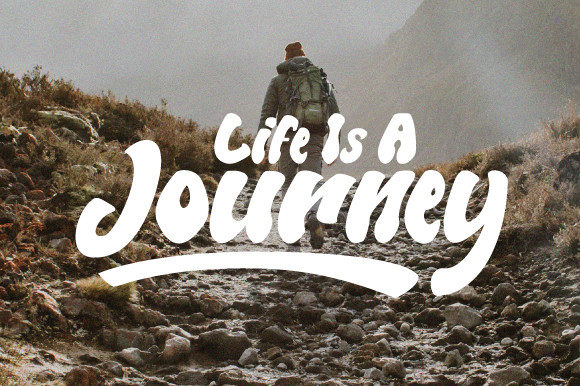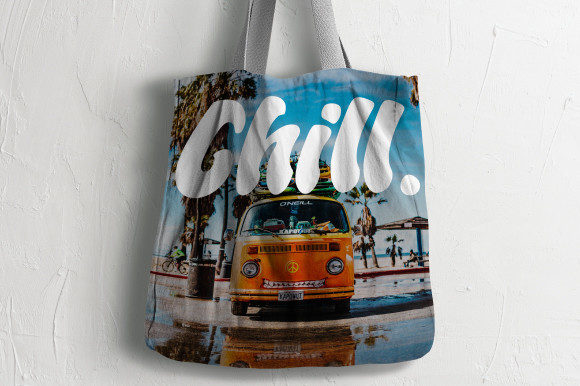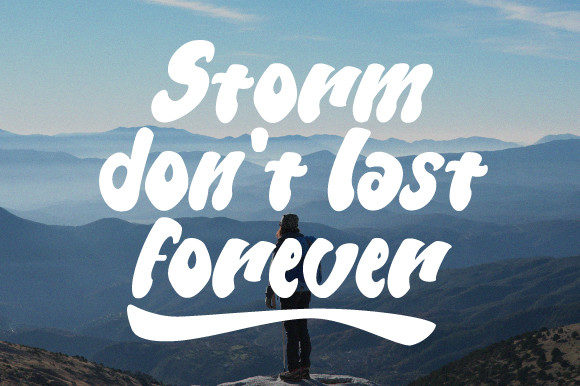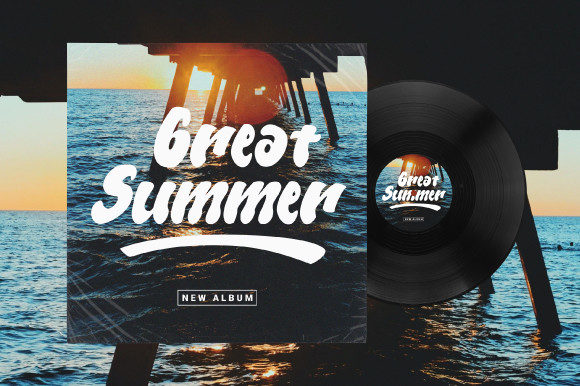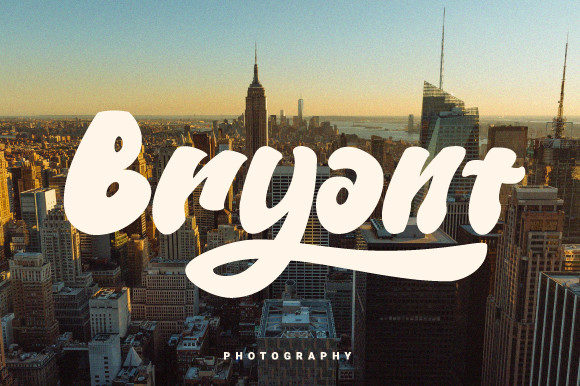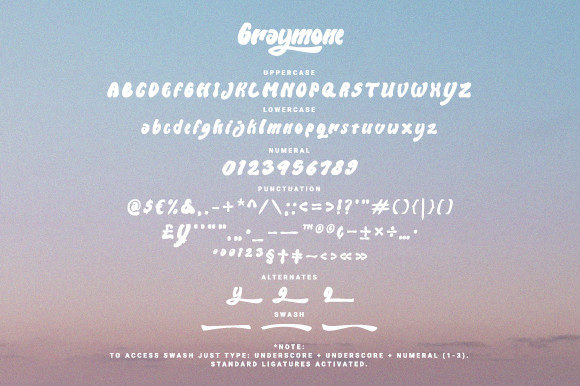
The Retro Charm of Graymone Font: A Designer’s Delight
I’ll never forget the time I was working on a branding project for a vintage-inspired boutique, and I was struggling to find the perfect font to capture the essence of the brand. The client wanted something that exuded confidence, authenticity, and charm, but everything I tried seemed to fall flat. That’s when I stumbled upon Graymone Font, and it was love at first sight! 💕
Graymone is a retro and bold display font that’s specifically designed to deliver messages with confidence, authenticity, and charm. Its unique blend of classic and modern elements makes it perfect for a wide range of crafting ideas, from cards and branding to labels and more.
An Honest Review: The Good and the Quirks
What I Love About Graymone Font ✨
- ✅ Unique Retro Style: Graymone’s retro vibe is infectious and can instantly elevate your designs with its bold and charming personality.
- ✅ Highly Versatile: Whether you’re working on a logo, a poster, or a social media graphic, Graymone can adapt to any design style with ease.
- ✅ Easy to Read: Despite its bold nature, Graymone remains surprisingly legible, making it perfect for headlines and titles.
- ✅ OpenType Features: Graymone comes with a range of OpenType features, including stylistic alternates and glyphs, which allow for endless creative possibilities.
- ⚠️ Limited Use in Body Text: Due to its bold nature, Graymone is best suited for headlines and titles. It may not be the best choice for body text or lengthy paragraphs.
- ⚠️ Requires Attention to Kerning: As with any bold font, kerning can be a bit tricky with Graymone. Make sure to adjust the spacing between letters to achieve the best results.
Graymone Font was designed with the goal of capturing the essence of retro charm and sophistication. The designer drew inspiration from classic fonts of the past, combined with modern elements to create a unique and versatile font.
| Font Name | Graymone Font |
| Author | Wisnoetype Co |
Q: What is Graymone Font best suited for?
A: Graymone Font is best suited for headlines, titles, and bold statements. It’s perfect for branding, posters, social media graphics, and more.
Q: Can I use Graymone Font for body text?
A: While Graymone Font is legible, it’s not recommended for body text or lengthy paragraphs. Its bold nature makes it better suited for headlines and titles.
Q: Does Graymone Font come with OpenType features?
A: Yes, Graymone Font comes with a range of OpenType features, including stylistic alternates and glyphs.